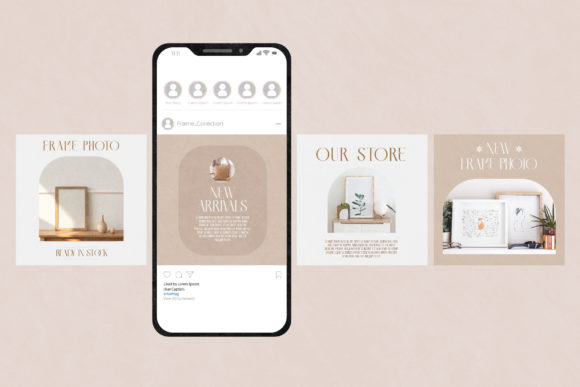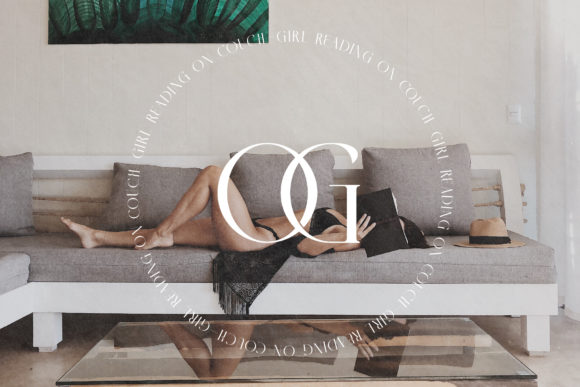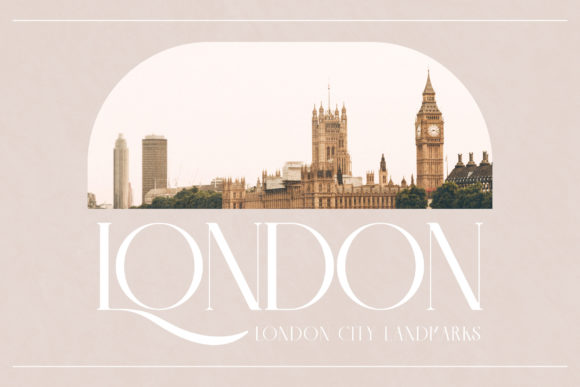
Introduction to Literacy Font
As designers, we’ve all been there – staring at a blank canvas, waiting for inspiration to strike. For me, it was a late-night brainstorming session, and the words “elegance” and “luxury” kept popping up in my mind. I was searching for the perfect font to capture that essence, and that’s when I stumbled upon the Literacy Font – a modern and classic serif typeface that would change the game for my creative project.
With its unique style and modern appearance, the Literacy Font is a design resource that can elevate any project. Whether you’re designing a logo, book title, or fashion brand, this versatile font is sure to make a statement. And the best part? It’s available for free download with a transparent background, making it a high-quality addition to any design.
As designers, we’re always on the lookout for tools that can help us create something truly special. The Literacy Font is one of those valuable resources that can take our designs to the next level, and I’m excited to share its secrets with you.
Key Features of Literacy Font
- High-quality, readable font design suitable for various creative projects, including educational materials and children’s books.
- Features a clear, child-friendly design with a large x-height, making it ideal for use in educational materials and children’s literature.
- High-resolution design, suitable for use in print and digital applications, including posters, flyers, and digital screens.
- Perfect for designers and educators looking for a unique, engaging font to enhance their creative projects and promote literacy.
Honest Review: Literacy Font
As a designer, I’m always on the lookout for high-quality design resources that can elevate my creative projects. Recently, I came across the Literacy Font, and I’m excited to share my honest review.
- ✨ High quality: The Literacy Font is crisp and clean, making it perfect for a variety of design applications.
- ⚠️ Limited character set: The font only includes a limited set of characters, which may not be ideal for longer texts or complex designs.
- ⚠️ Not ideal for print: While the font looks great on screen, it may not be the best choice for print materials due to its digital origins.
Overall, I think the Literacy Font is a great addition to any designer’s toolkit. While it has its limitations, its high quality, free download, and transparent background make it an excellent choice for many creative projects.
Tips for Getting the Most Out of Literacy Font
To get the most out of the Literacy Font, experiment with different font sizes, colors, and combinations. You can also use the font in conjunction with other design resources, such as graphics and images, to create a cohesive and visually appealing design.
Common Use Cases for Literacy Font
The Literacy Font is a versatile design resource that can be used in a variety of creative projects. Some common use cases include:
Q: Can I customize the Literacy Font to fit my design needs?